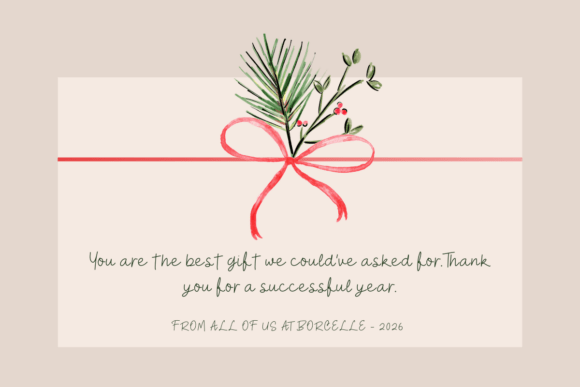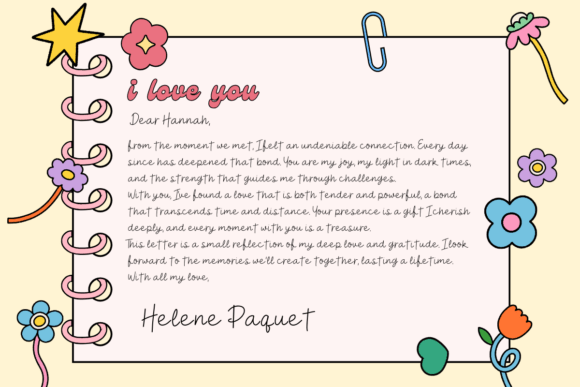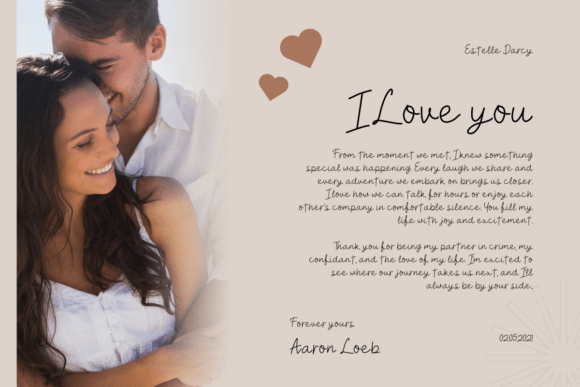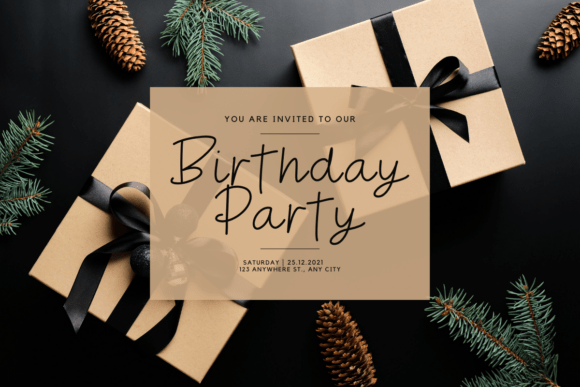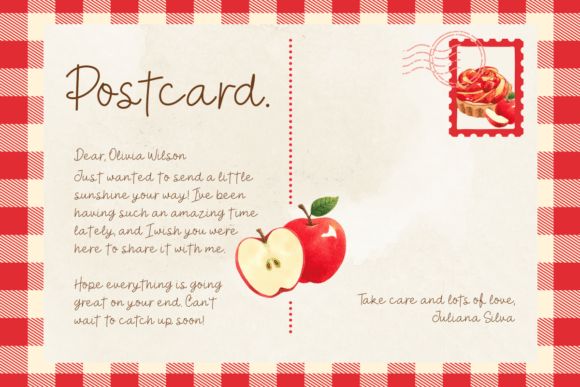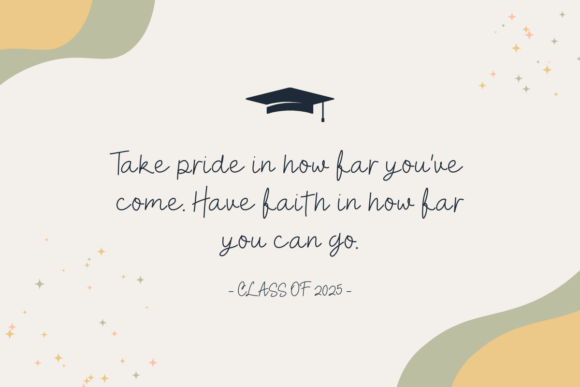
Introduction to Daily Ink Font
Have you ever been in a creative moment, pouring your heart onto a blank page, only to realize that the right font could elevate your design from ordinary to extraordinary? For designers, finding the perfect font can be a game-changer. That’s where the Daily Ink Font comes in – a beautiful blend of modern calligraphy and intimate handwriting style that adds a touch of sophistication and personal charm to any project.
As a valuable design resource, the Daily Ink Font offers endless possibilities for creative expression. Whether you’re working on a branding project, crafting a wedding invitation, or designing a magazine, this font is sure to add a unique aesthetic charm to your work. With its high-quality design and transparent background, the Daily Ink Font is perfect for designers looking to add a personal touch to their projects.
Key Features of Daily Ink Font
- High-quality, professional font design ideal for creative projects.
- Features a transparent background, making it suitable for various design needs.
- Designed with a high-resolution display in mind (at least 300 DPI) for optimal clarity and readability.
- Comes in a single font size, with a standard font size of 12 points and a font size range of 6 to 72 points.
- Perfect as a design resource for various creative projects, including digital art, graphic design, and print materials.
Honest Review: Daily Ink Font
I recently came across the Daily Ink Font, and I must say it’s been a game-changer for my creative projects. This font is perfect for designers who need a clean and modern look without the hassle of a transparent background. It’s free to download, making it an excellent addition to any design resource library.
- ✨ The font’s clean and modern design makes it perfect for a wide range of creative projects.
- ✨ The font’s high quality is evident in its crisp lines and well-designed characters.
- ⚠️ The font may not be suitable for projects that require a lot of customization, as it’s a relatively simple design.
- ⚠️ The lack of variations in the font family may limit its use in certain creative projects.
Overall, I’m impressed with the Daily Ink Font. Its clean design and high quality make it a valuable addition to any design resource library. While it may have some limitations, it’s an excellent choice for designers looking for a simple and modern font.
How to Use Daily Ink Font
Using in Creative Projects
Getting the Most Out of Daily Ink Font
Here are some tips for getting the most out of the Daily Ink Font:
- Experiment with different font sizes and styles to create a unique look.
- Combine the Daily Ink Font with other design elements, such as images and graphics, to create a visually appealing design.
- Use the font’s transparent background to create a sense of depth and dimension in your design.
The Daily Ink Font is a versatile design resource that can be used in a variety of situations, including:
- Designing social media graphics and posts.
- Creating presentations and reports.
- Developing branding and marketing materials.
Is Daily Ink Font a high-quality font, suitable for professional designs?
Yes, Daily Ink Font is a high-quality font designed to meet the needs of professional designers. It features a clean and modern design, making it suitable for a wide range of creative projects, from logos and branding to brochures and magazines. The font is also optimized for web use, ensuring that it looks great on both desktop and mobile devices.